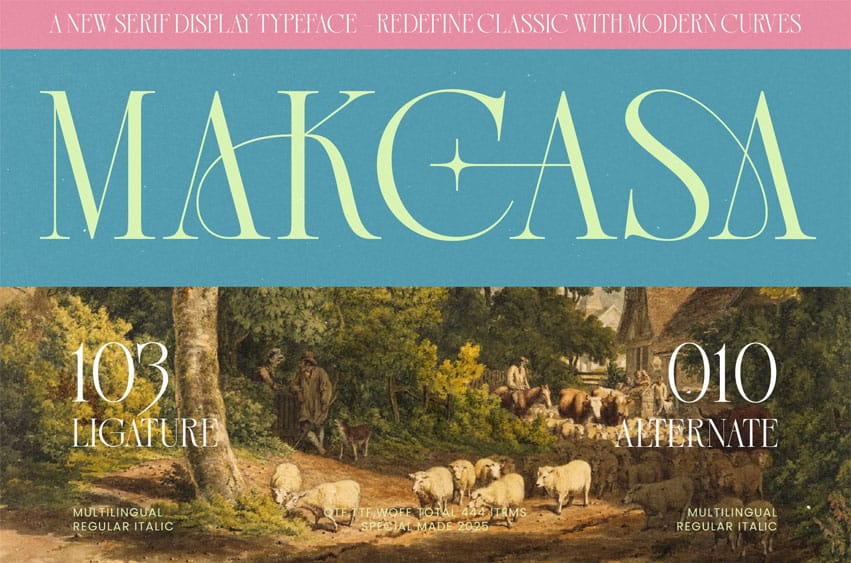
Makcasa Font is a refined serif display typeface that blends classic calligraphic heritage with modern, flowing curves. Its elegant strokes, elongated forms, and artistic ligatures create an elevated, timeless aesthetic suitable for luxury branding, editorial layouts, wedding stationery, packaging, logos, and high-fashion visual identities. The font delivers a sophisticated balance between tradition and contemporary style, making every composition feel polished and expressive.
With 103 ligatures, 10 alternates, and a total of 444 glyphs, Makasa provides exceptional creative flexibility—perfect for crafting ornate titles, graceful monograms, decorative wordmarks, and premium typographic arrangements. Its delicate detailing, stylish sweeps, and premium serif structure make it an ideal choice for designers seeking elegance, artistry, and modern-classic charm.